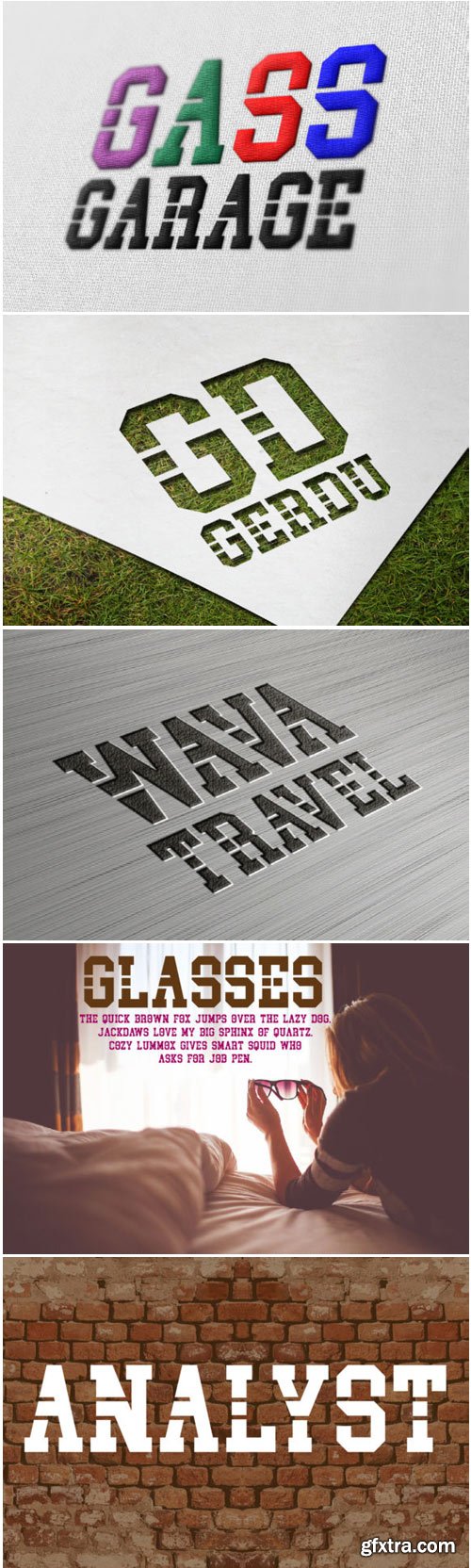
Analyst Font
Analyst is an elegant serif font with unique characters. Get inspired by its beautiful elements, and turn any design idea into a stand out!